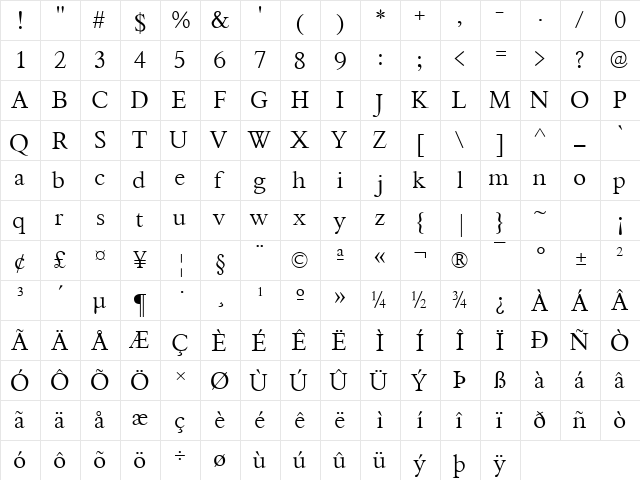
Thryomanes Normal
Design Context for Thryomanes Typeface
Thryomanes offers clean, dependable letterforms without strong stylistic allegiance, making it a practical choice for designers who need flexibility.